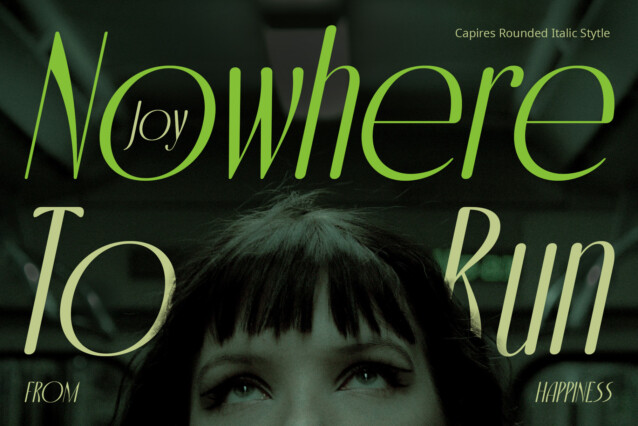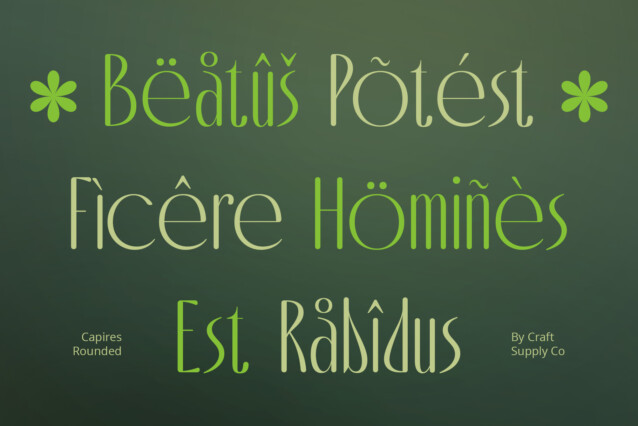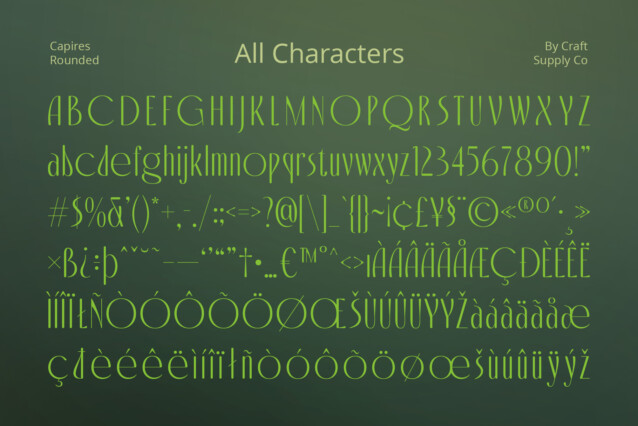
Capires Rounded Font
Capires Rounded Font: A Contemporary Twist on Art Nouveau. Capires Rounded presents a sleek sans-serif design elevated by its distinctive rounded terminals. Inspired by the flowing lines of Art Nouveau, this font exudes a sense of elegance and sophistication.
Art Nouveau Inspiration
Drawing inspiration from the Art Nouveau movement, This font captures the essence of organic forms and fluidity. Its tall stature and rounded edges pay homage to the intricate details of this iconic style.